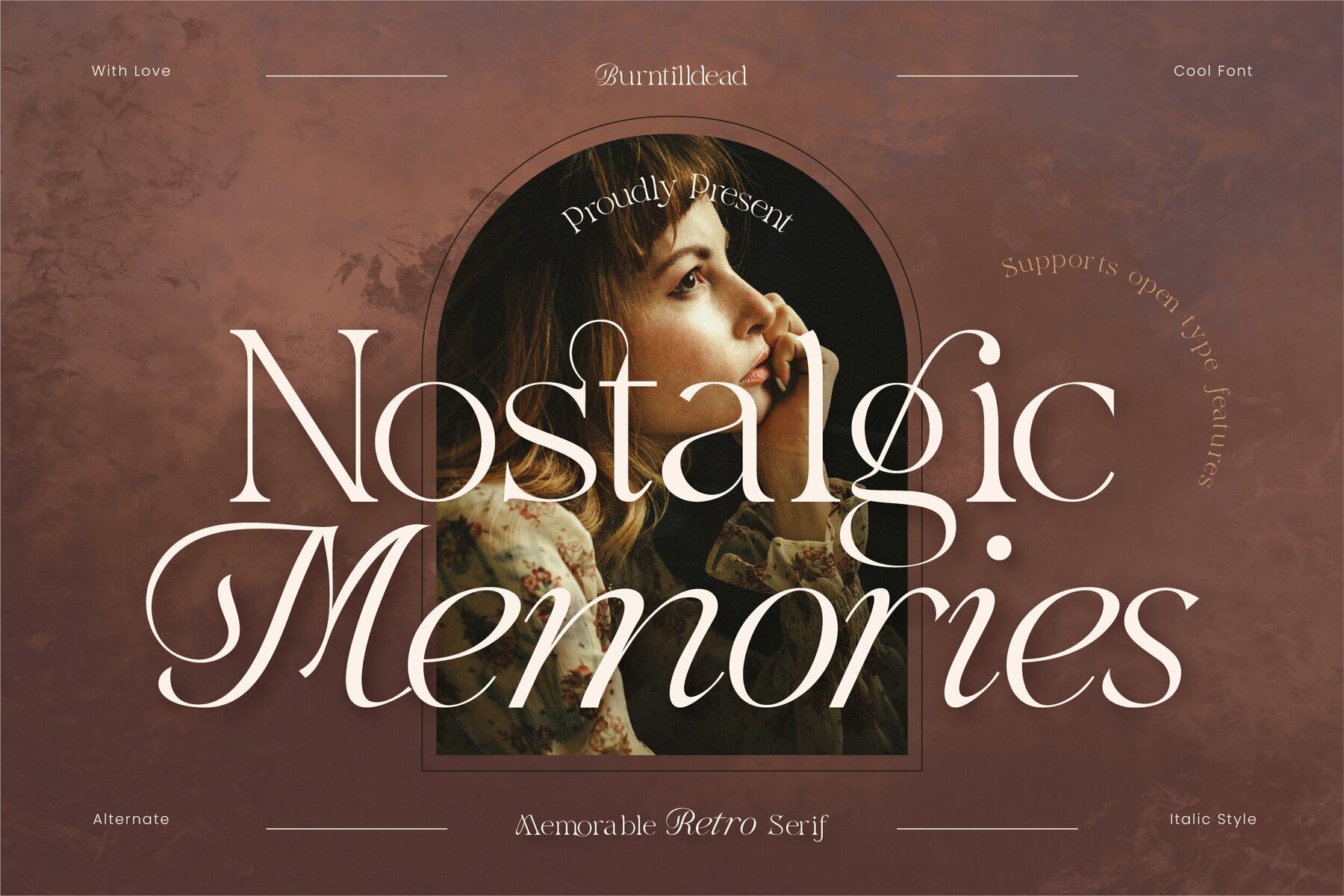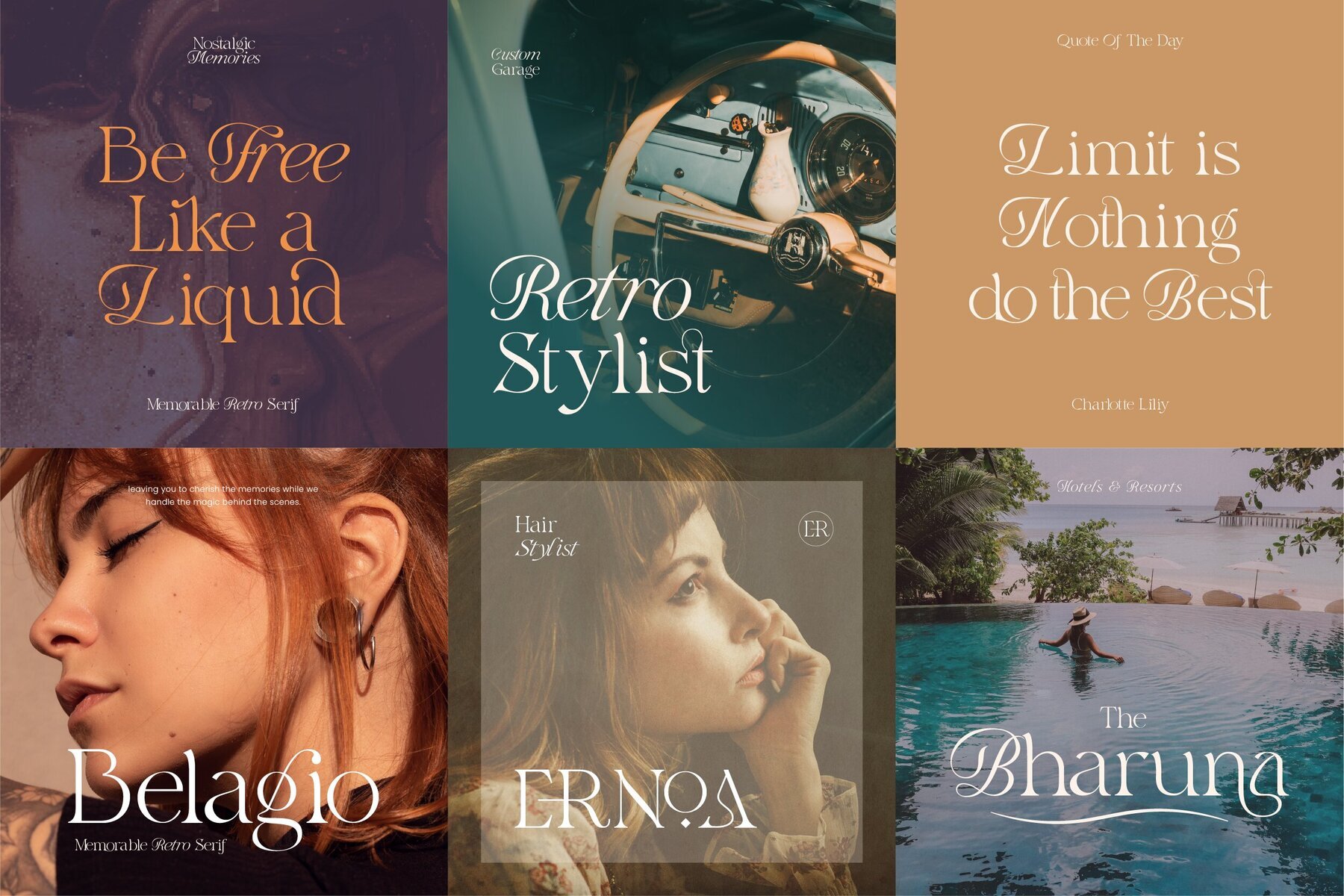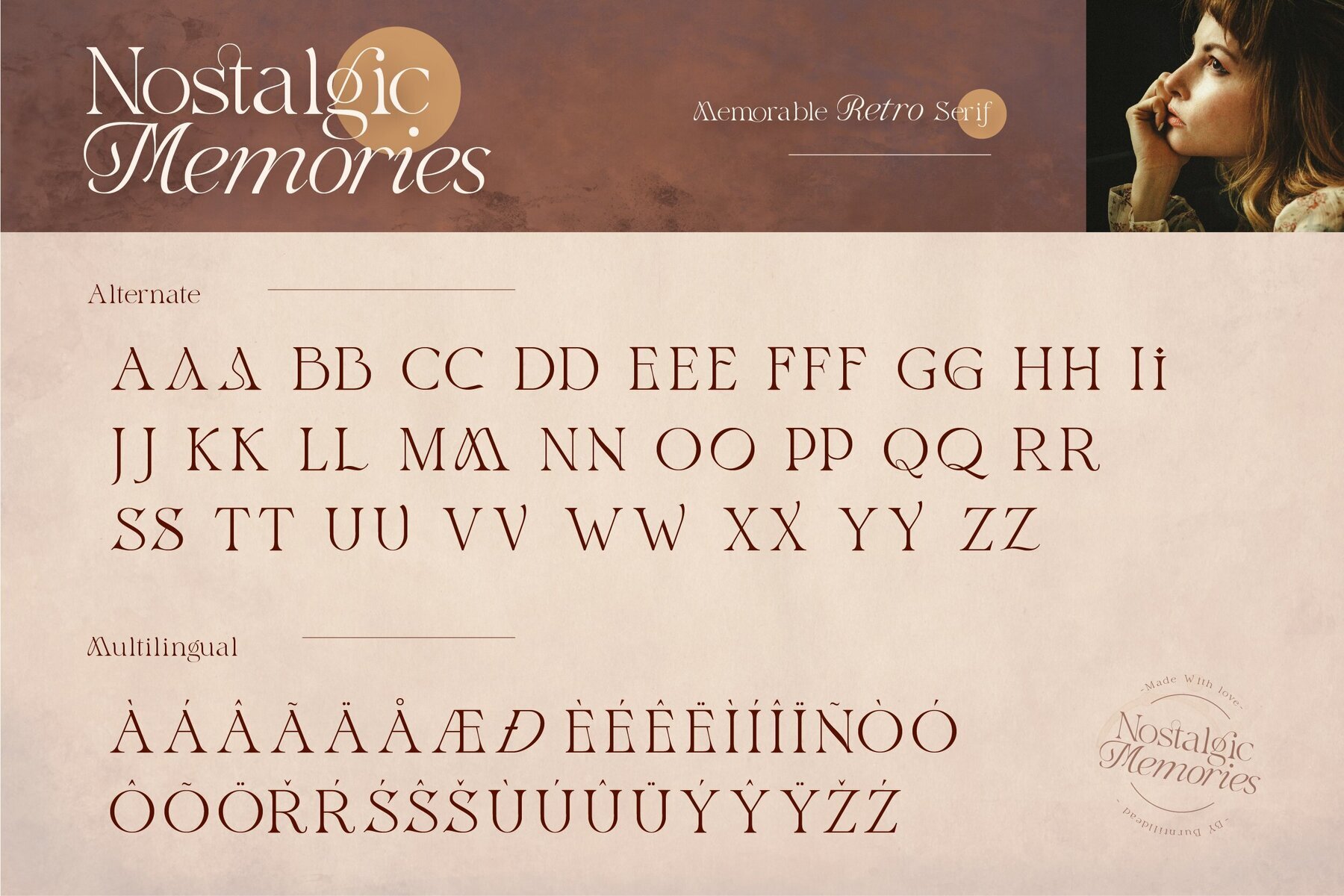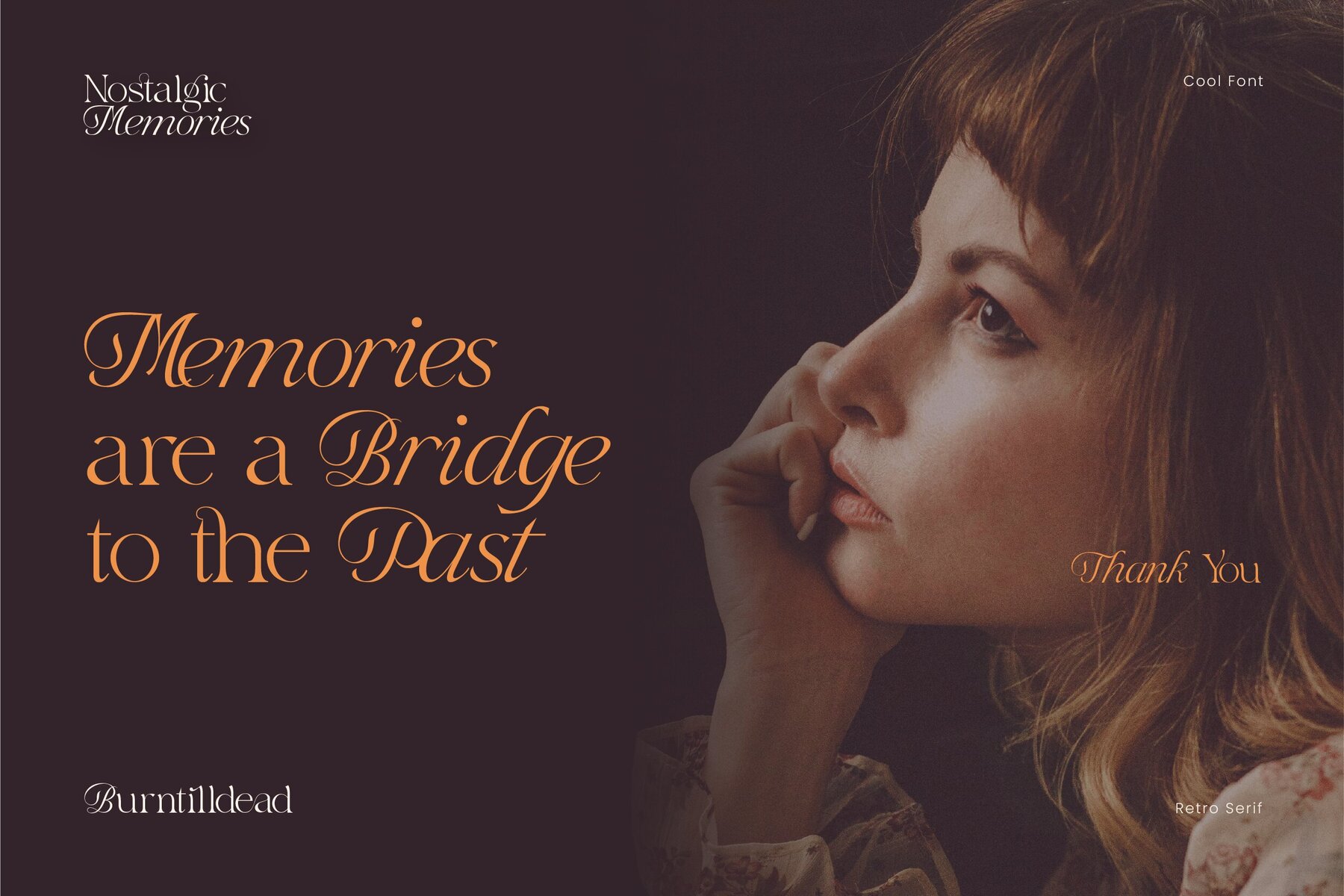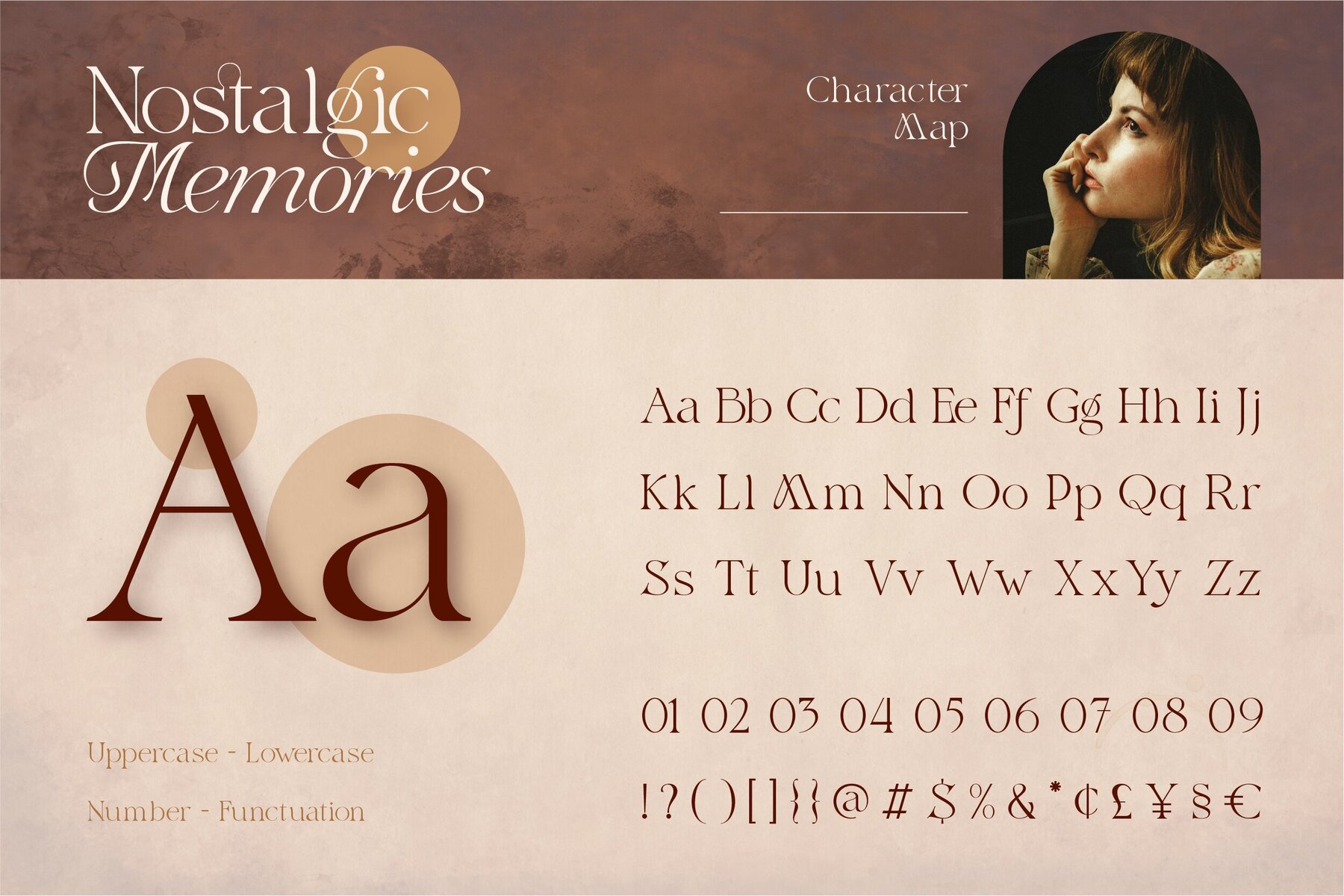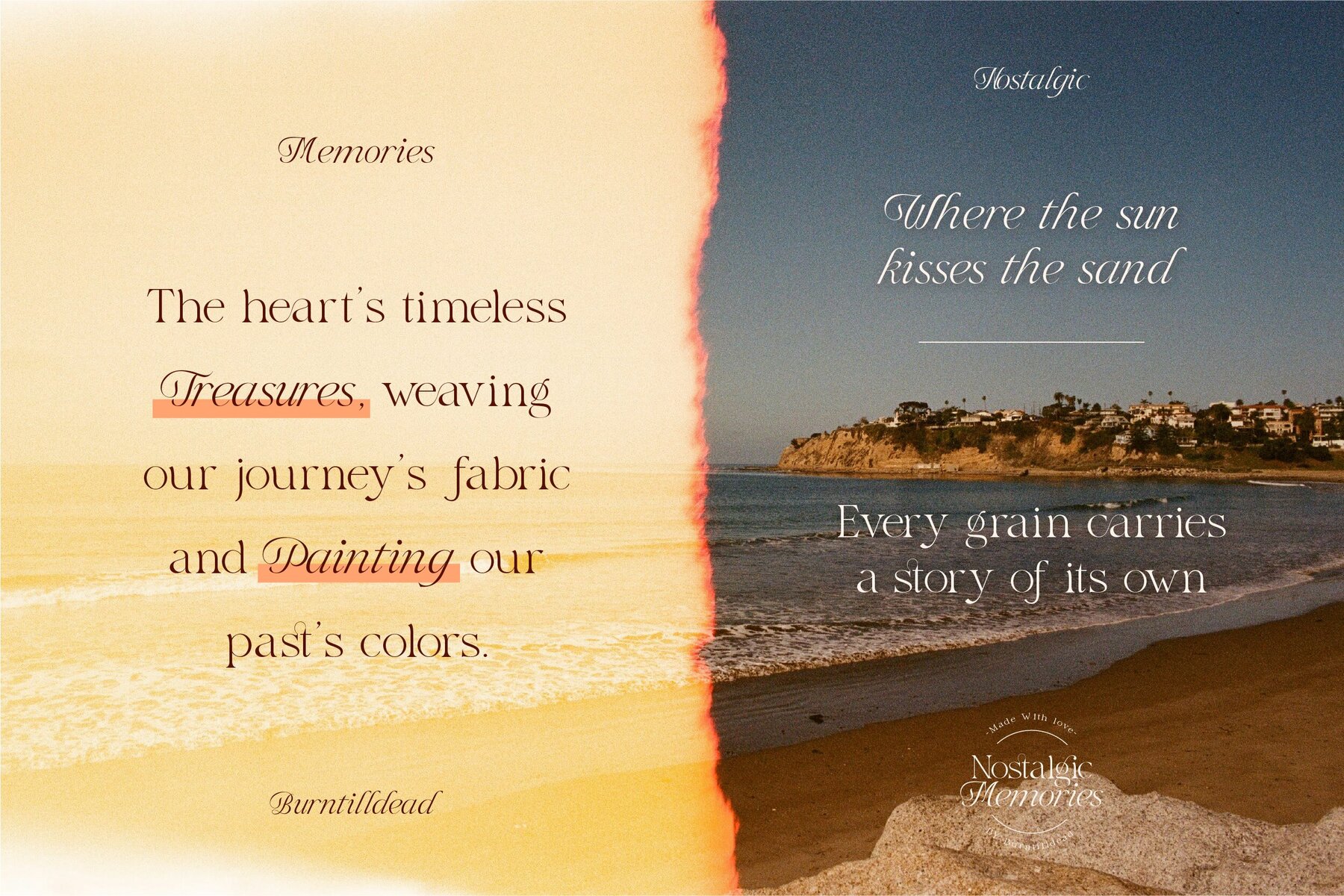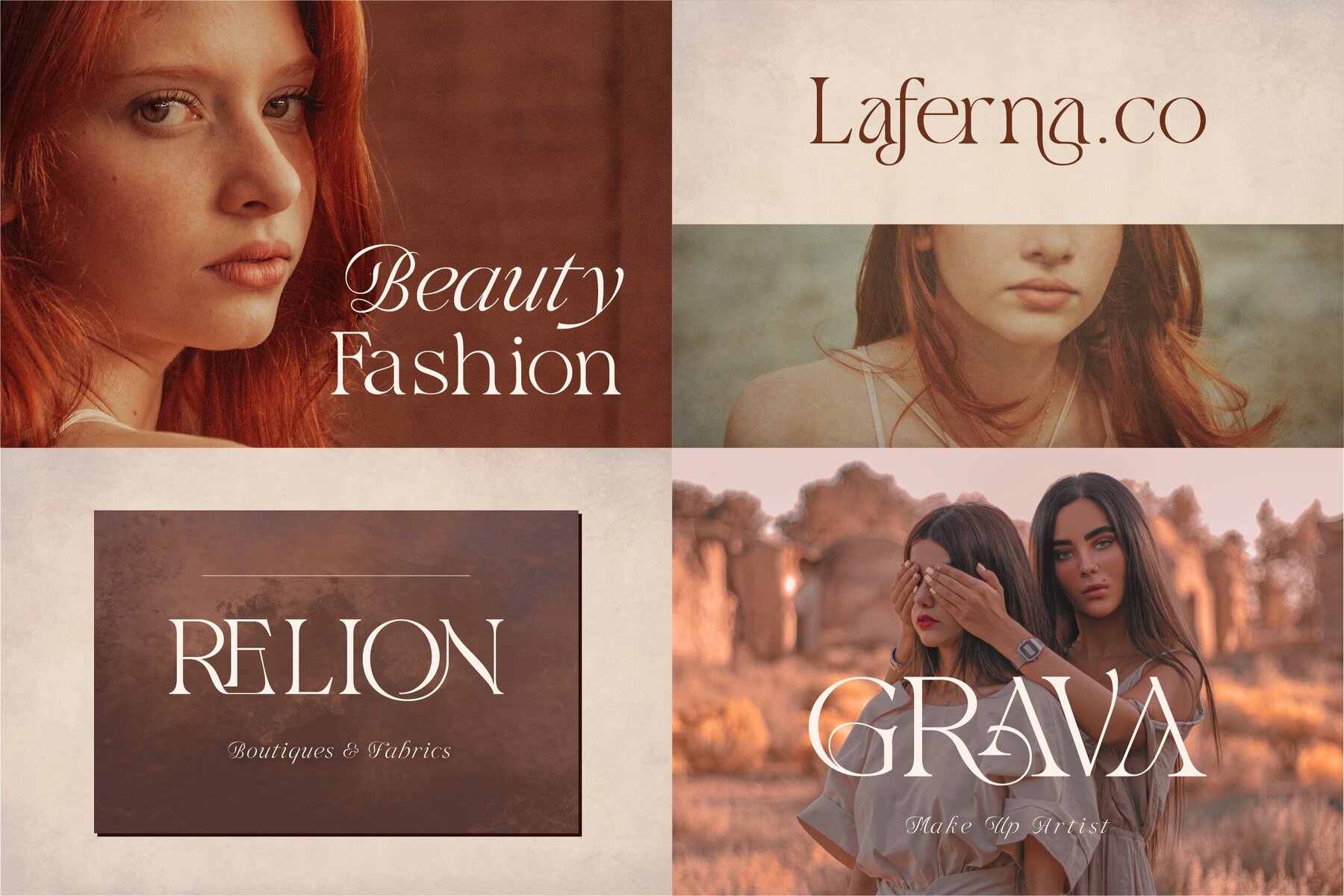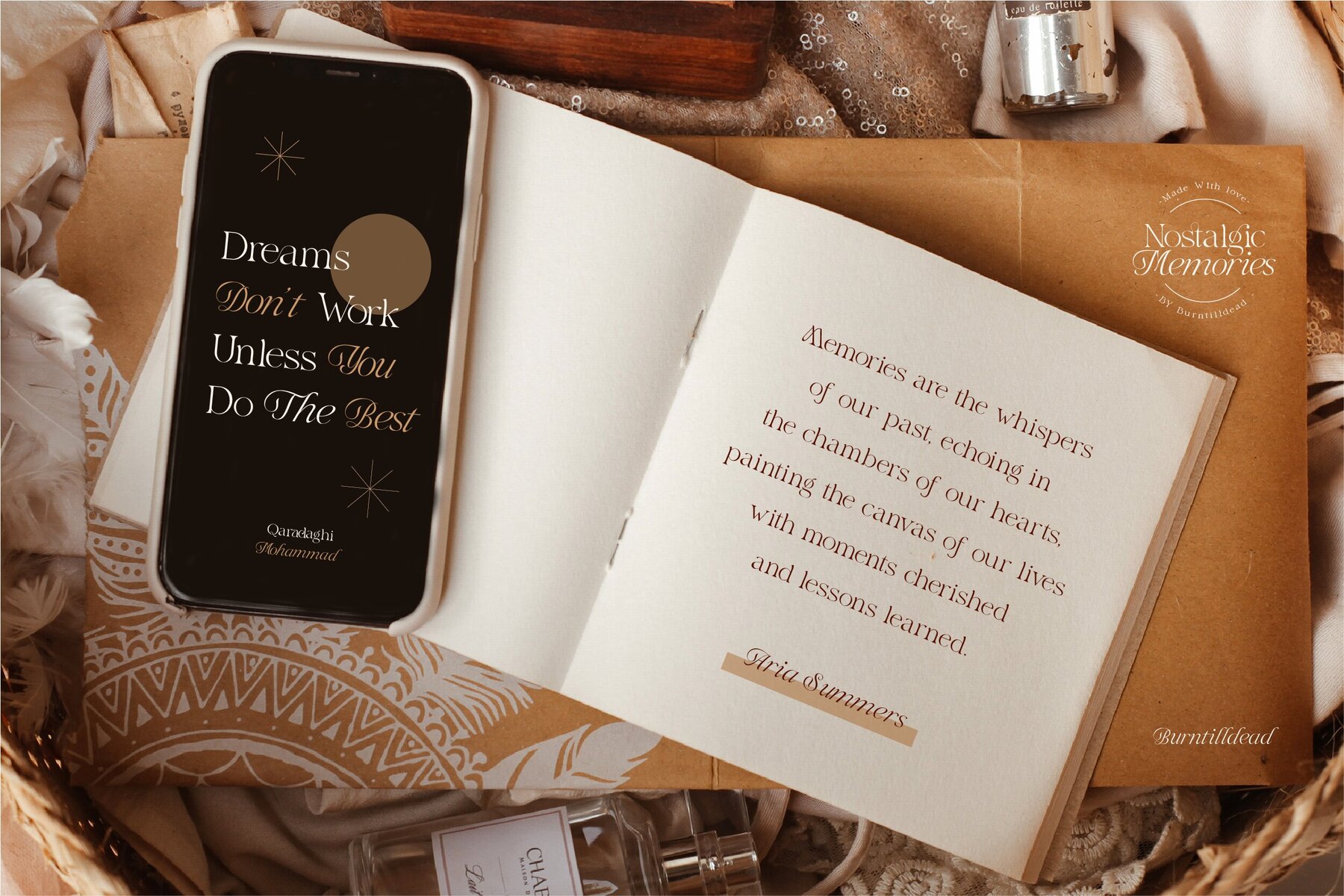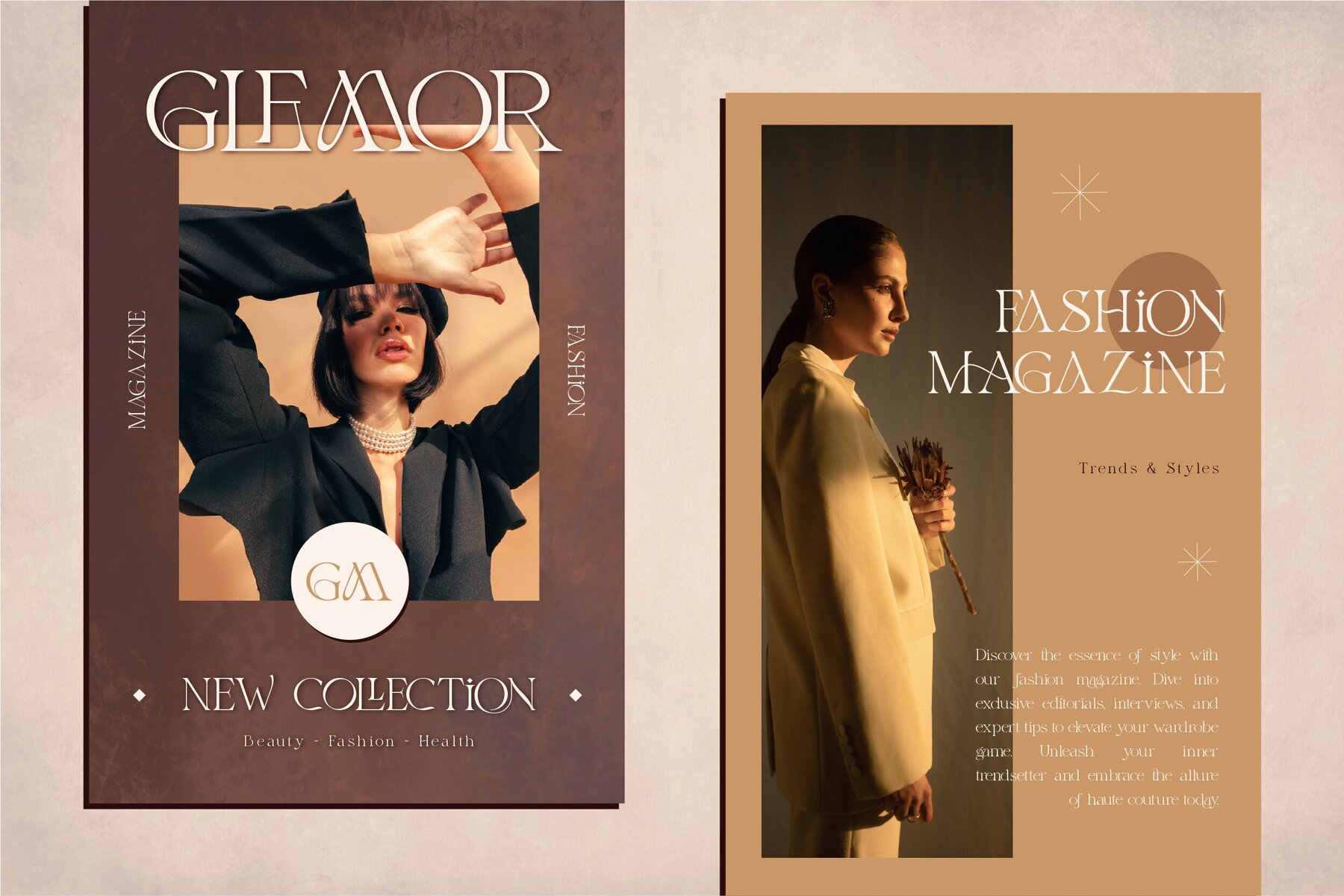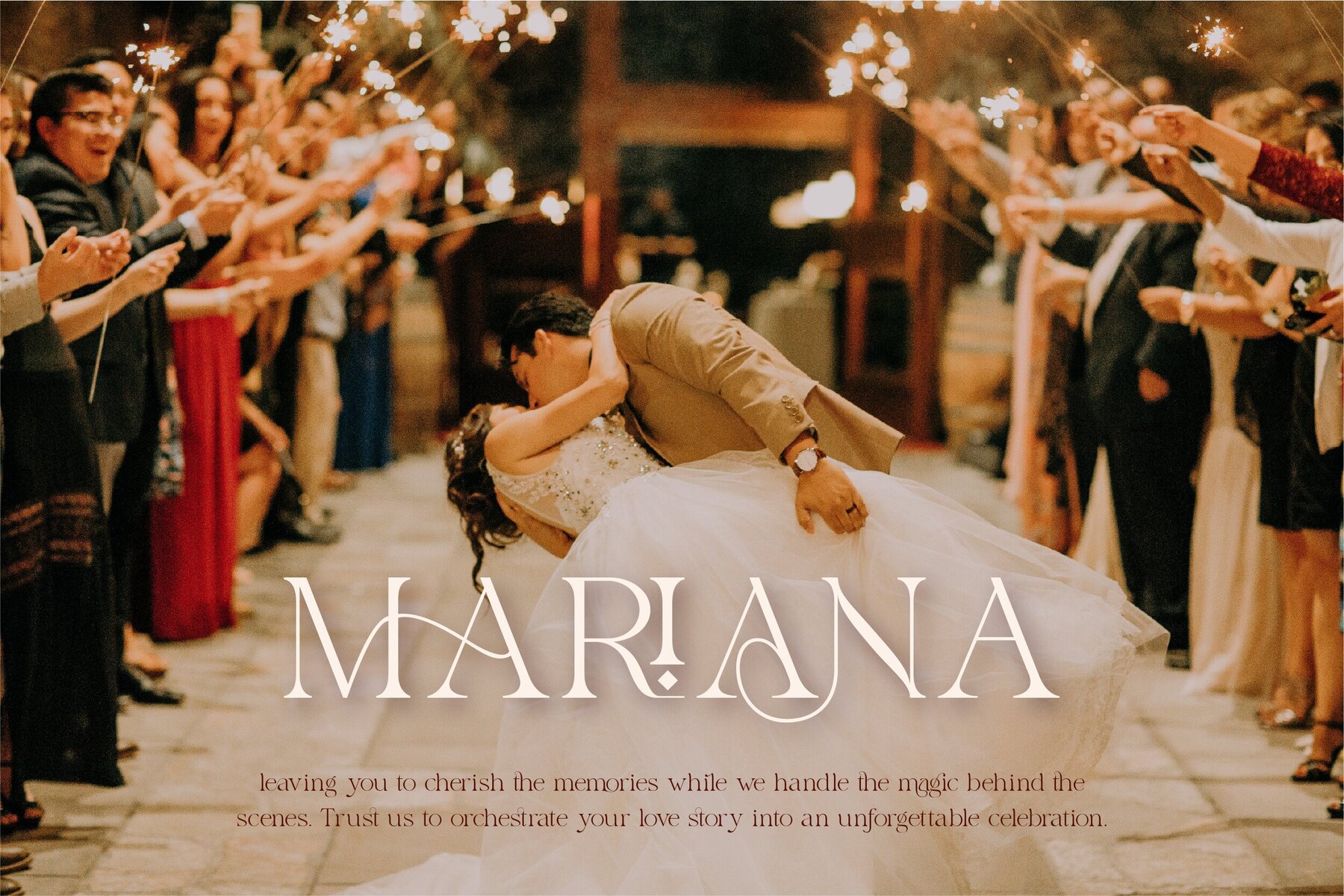
Nostalgic Memories Font
This typeface combines the elegance of traditional serif fonts with the flair of modern display typefaces. It exhibits a high contrast between thick and thin strokes, with sharp, refined serifs and a strong, vertical axis, lending it a stylish, sophisticated presence perfect for high-end branding and editorial uses.